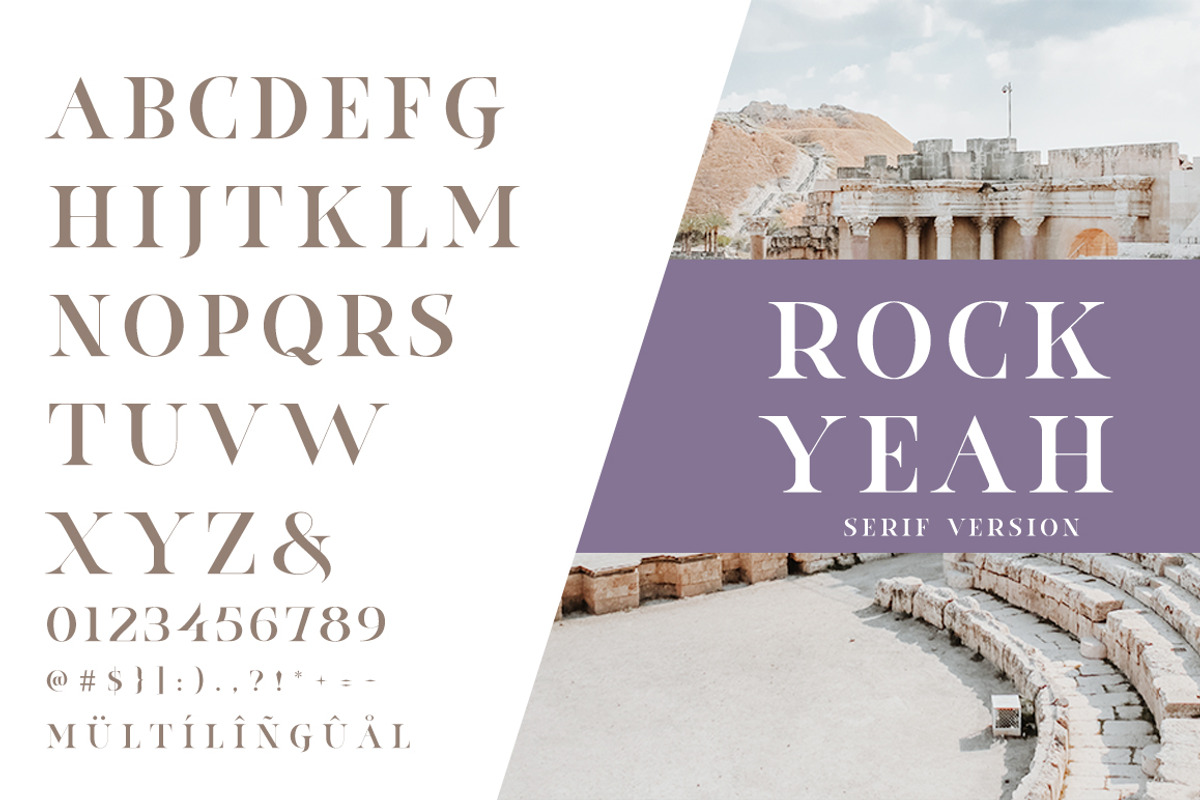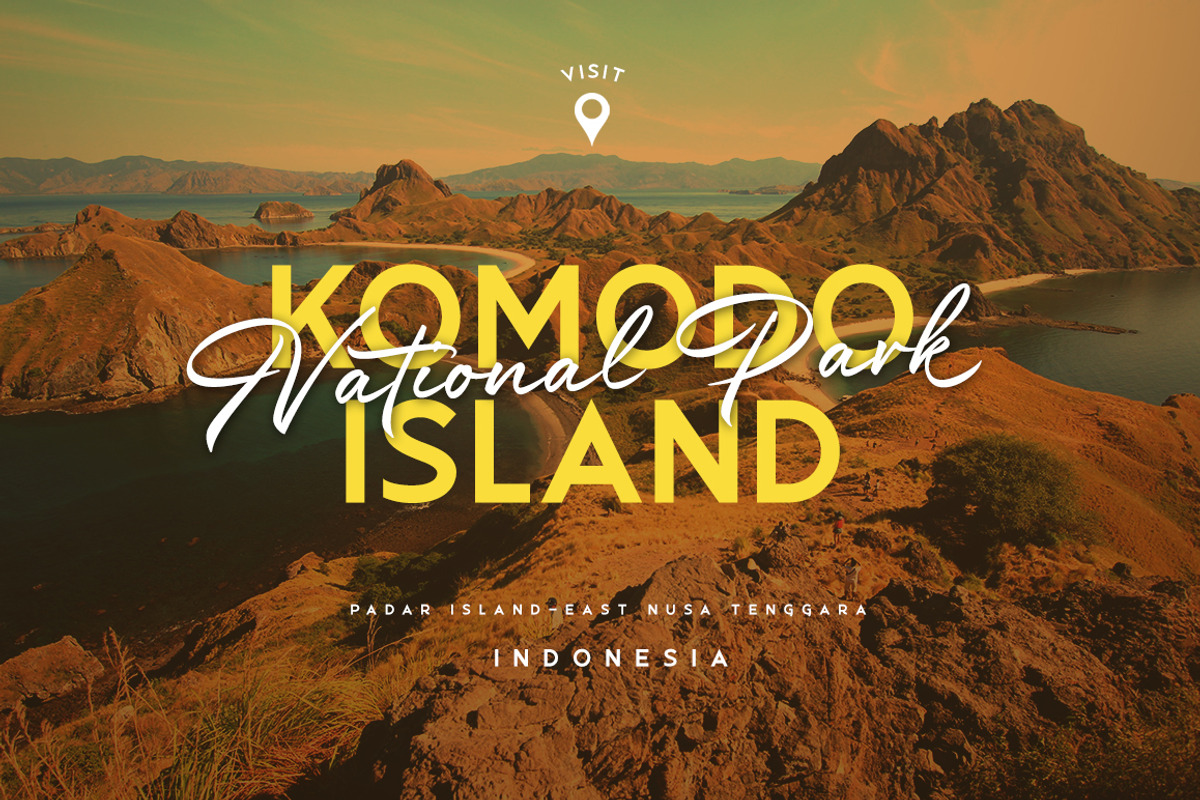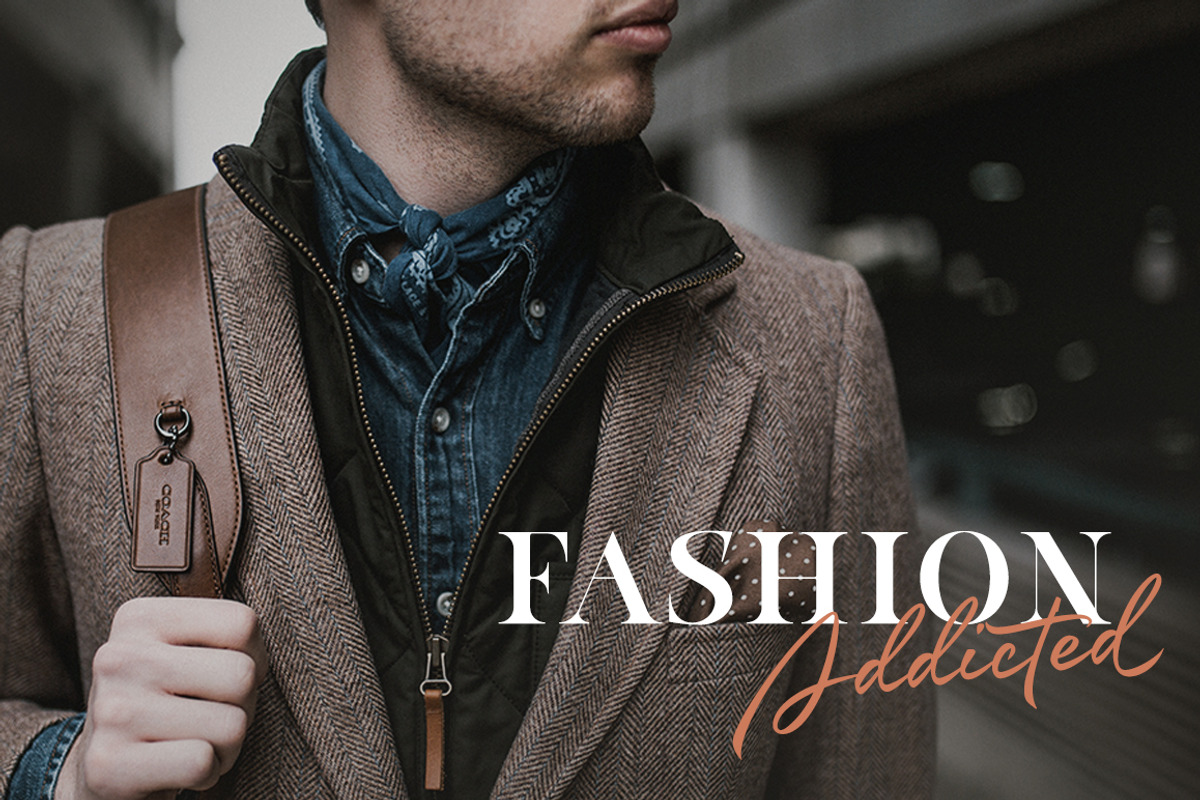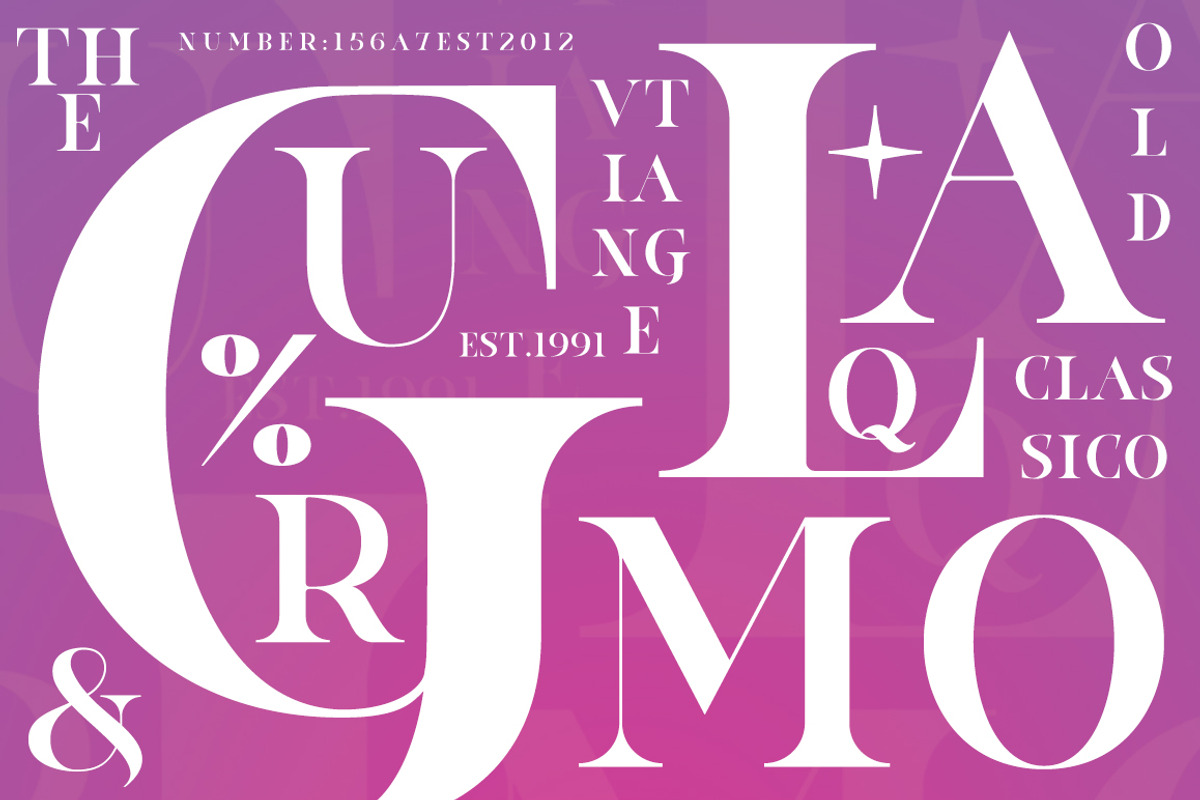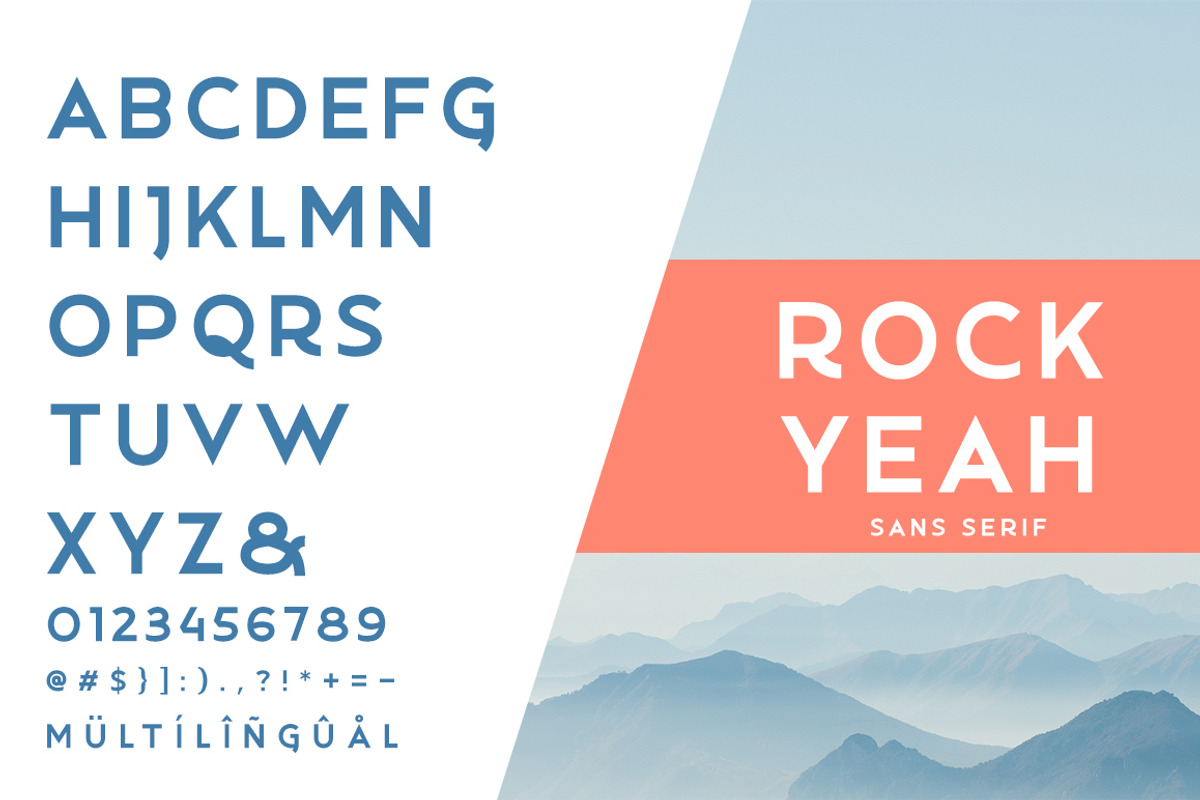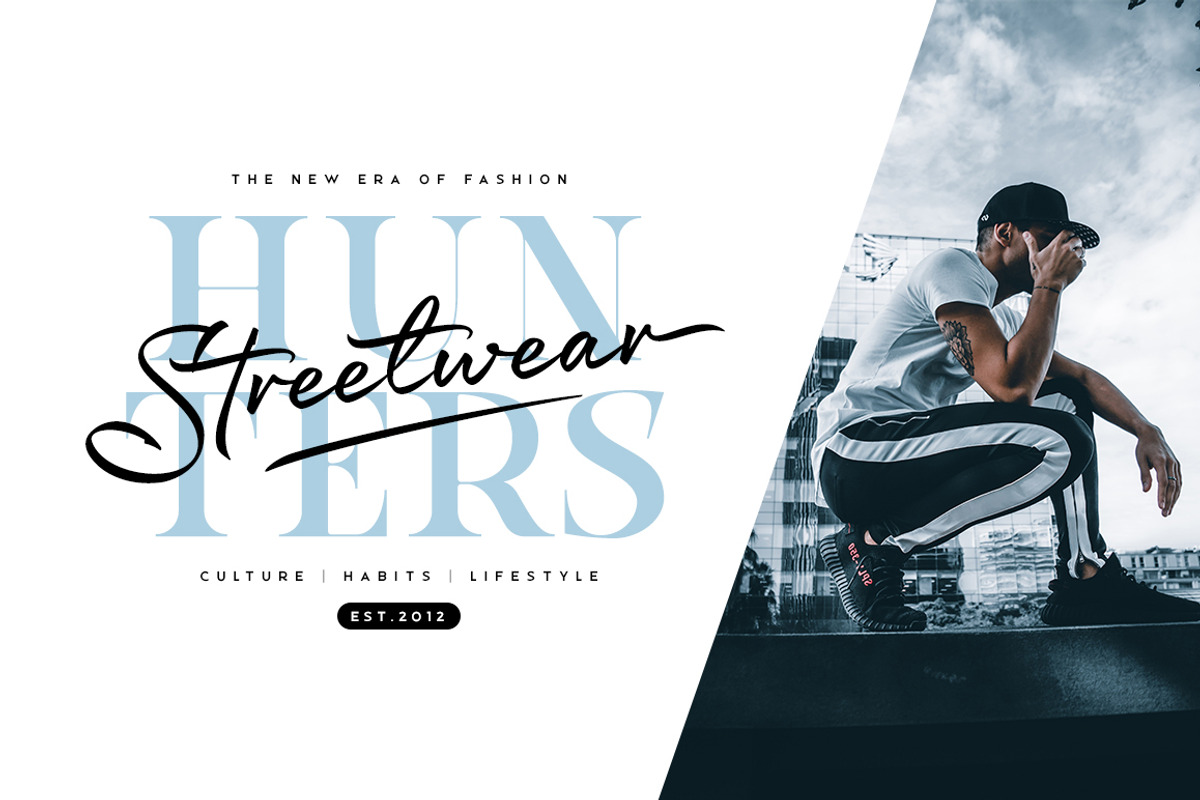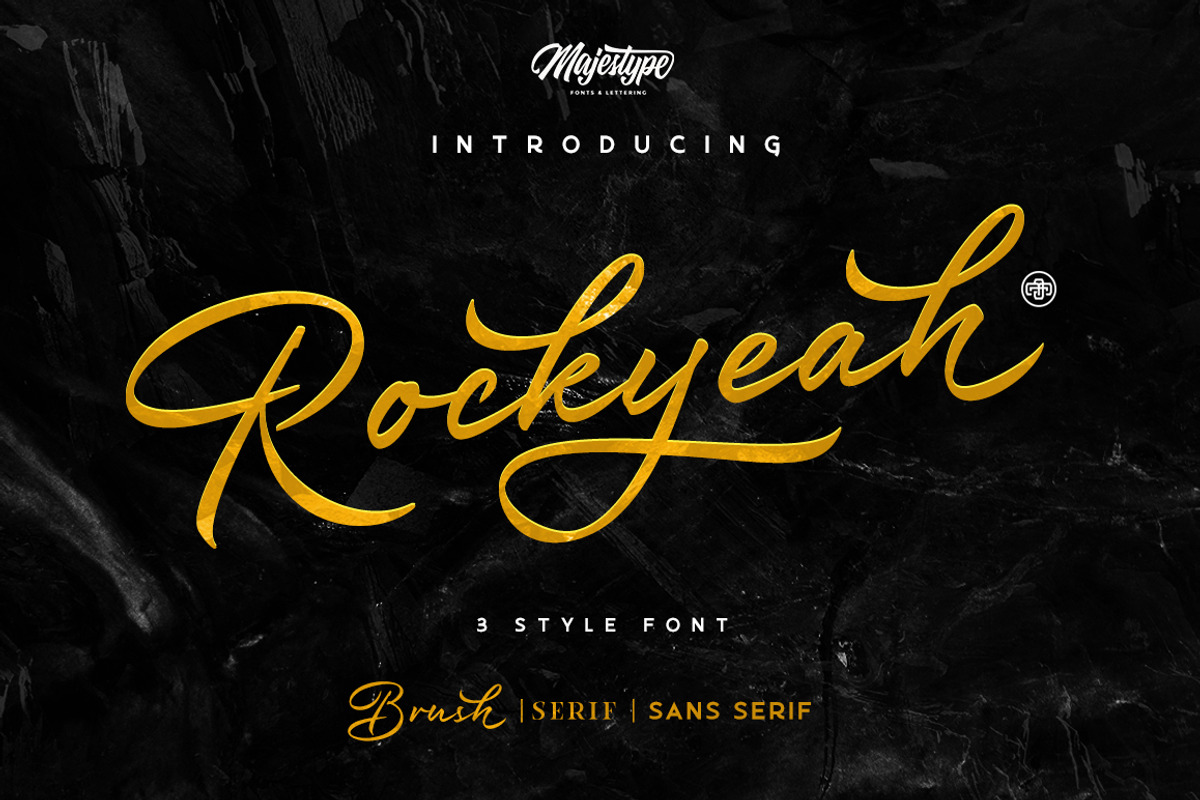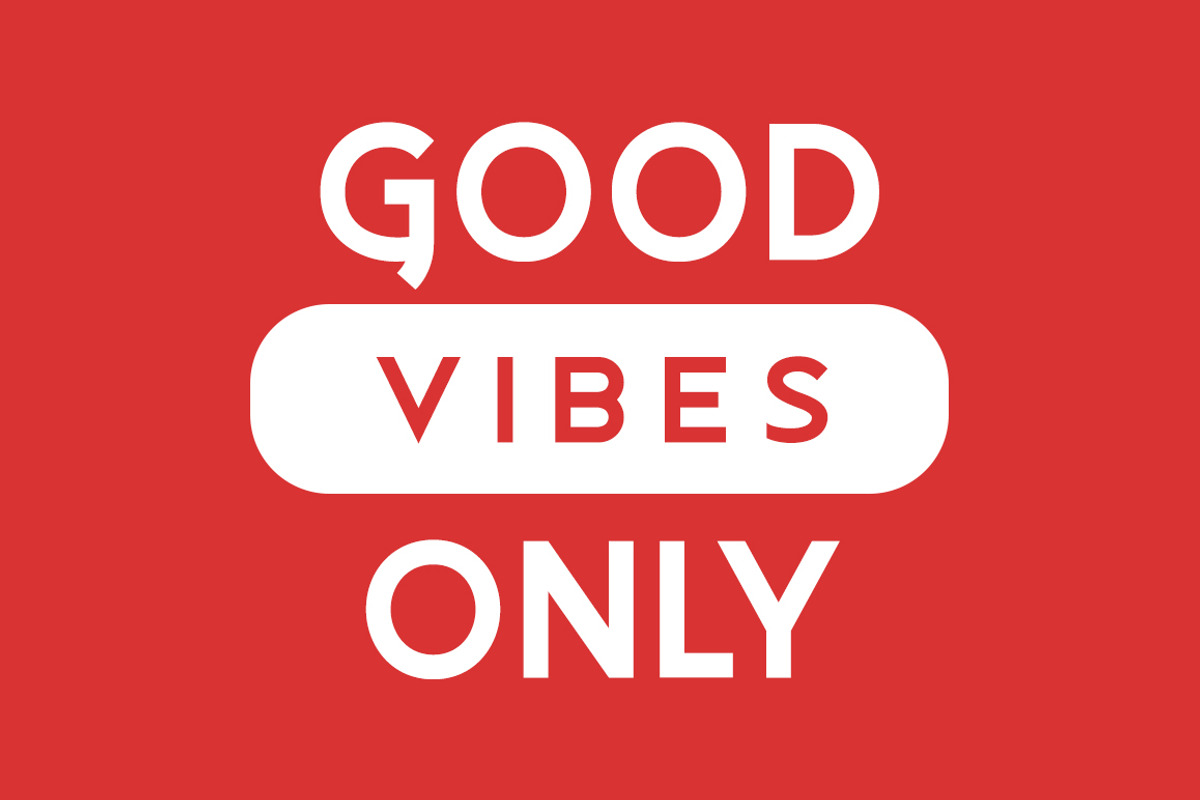
Rockyeah - Brush, Sans & Serif Fonts
Rockyeah is 3 style fonts: brush, serif and sans serif who have strong personalities and work very well in many design projects.
Rockyeah Brush made with fine brush pen with the fastest stroke movement. Comes with over 300 glyphs that will give you a vast possibility to play with each character.
Rockyeah Serif is an interpretation of Rockyeah brush. A serif font that focuses on legible, elegant and unique. With light and bold stroke combination this serif will give a modern-classic vibes on your design project.
Rockyeah Sans a geometric sans serif that focuses on legible, clean and useful for any project. This sans is an interpretation of Rockyeah Serif with the same caps height and bold stroke.
Rockyeah can be work good individually or three at a time. Just see the poster :)
Rockyeah suitable for tshirt design, photography, invitation, ID card, tattoo, poster, logo, title, branding and etc.